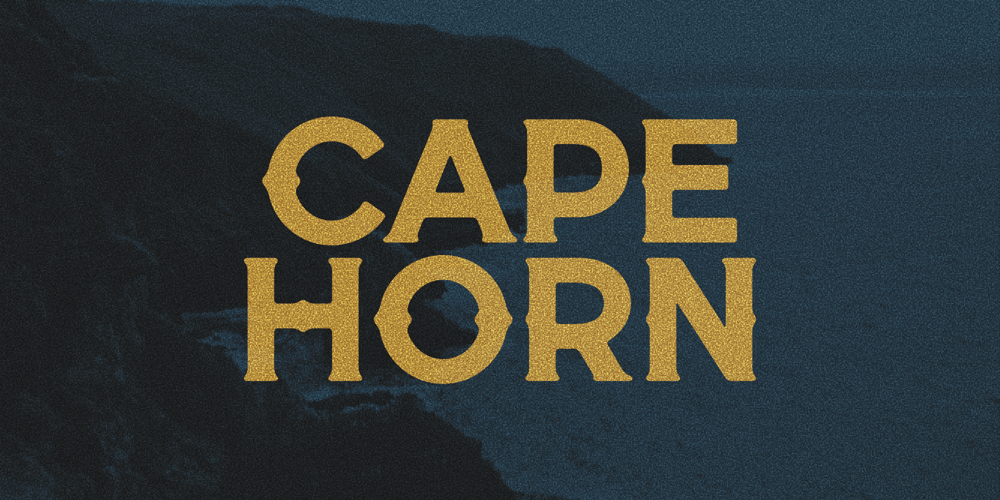
Cape Horn Font Family was designed by Chad Palmer and published by Palmer Type Company. Cape Horn contains 1 styles and family package options. Cape Horn is a typeface inspired by seafarers who have perished by navigating the treacherous seas surrounding Cape Horn, which is at the southern-most tip of South America. A-Z Numbers Multi-language support Symbols Special Characters Uppercase